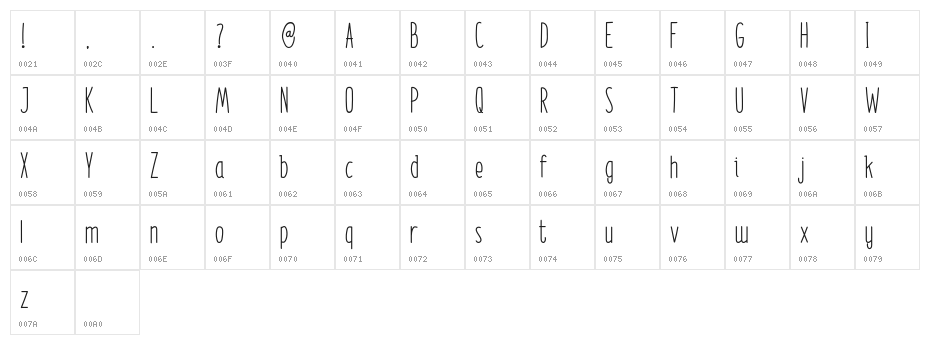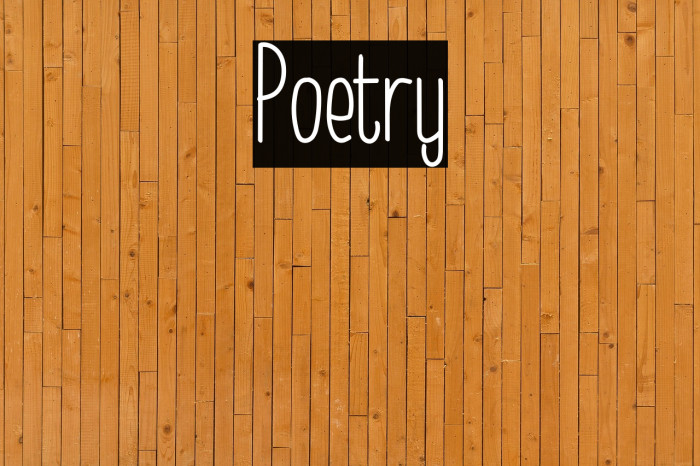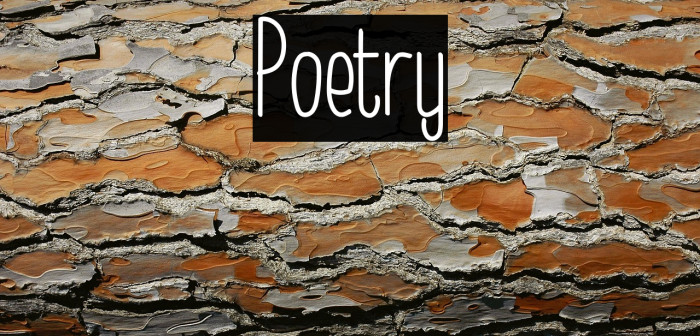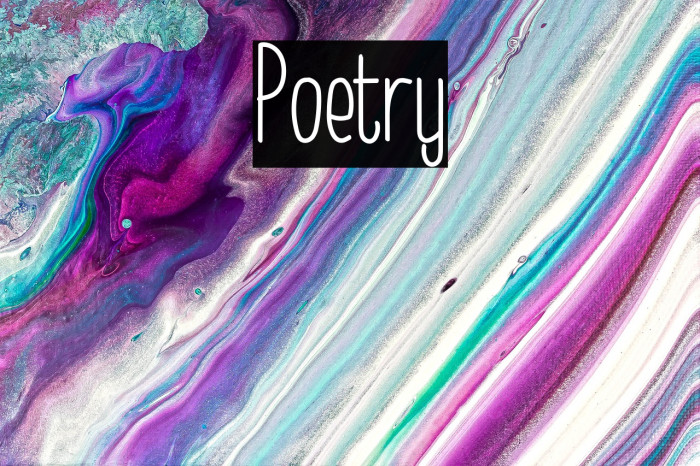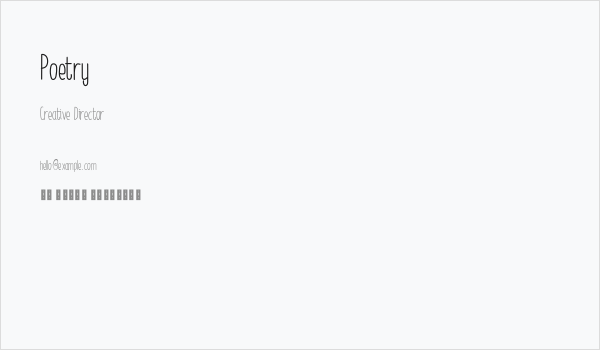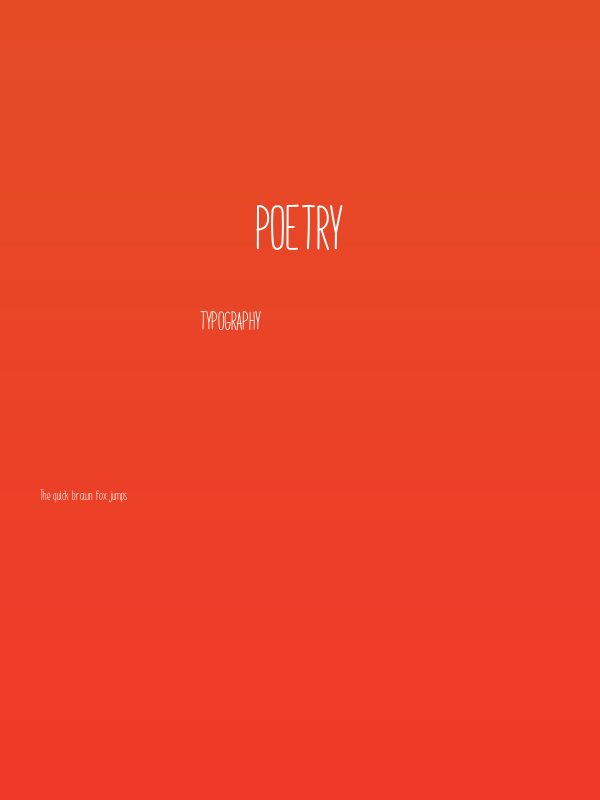
Poetry Font
Poetry Description
This font features a playful and whimsical style with tall, narrow letterforms. The strokes are consistent in width, giving it a uniform appearance. The uppercase letters are slightly taller than the lowercase, maintaining a sense of balance and harmony. The font has a handwritten feel, with slight curves and rounded edges that add to its charm. It lacks special characters, focusing on basic punctuation and alphabetic characters. The overall look is clean and modern, making it suitable for creative projects.
Proposed ProjectsIdeal for children's books, greeting cards, and creative branding projects.